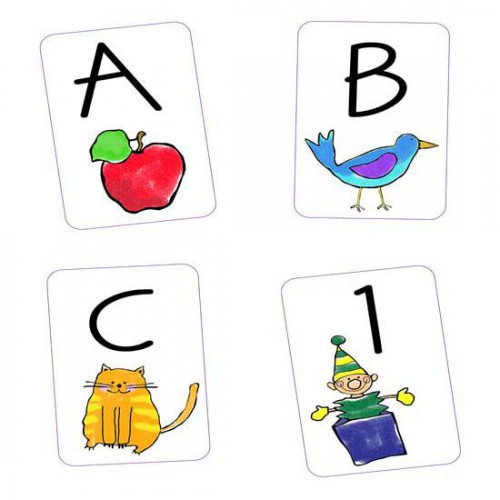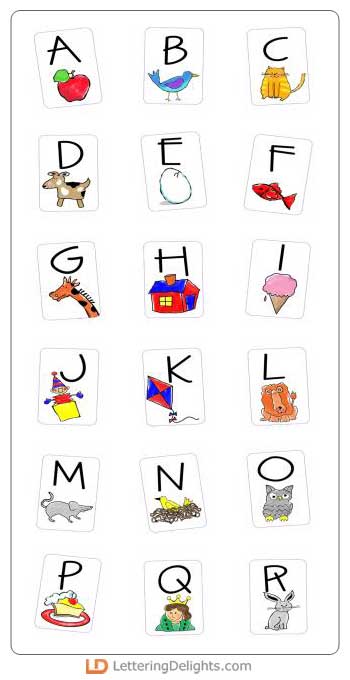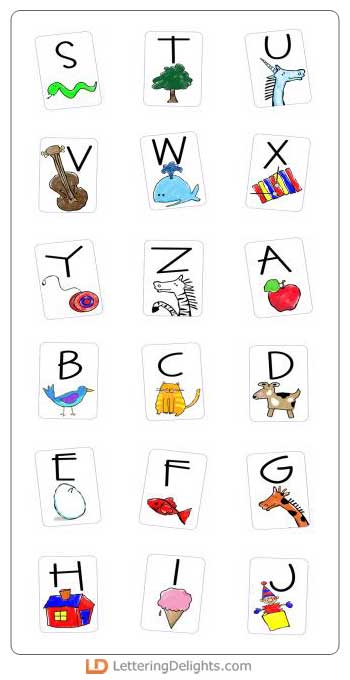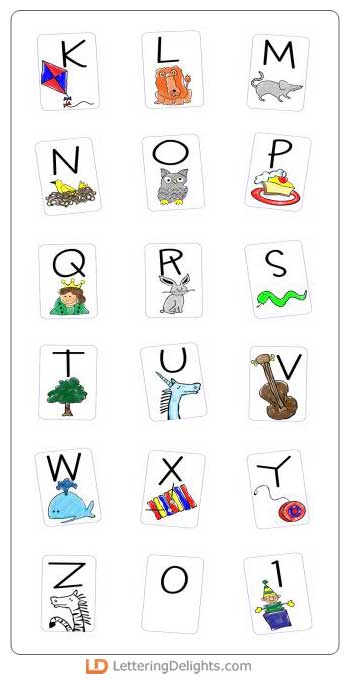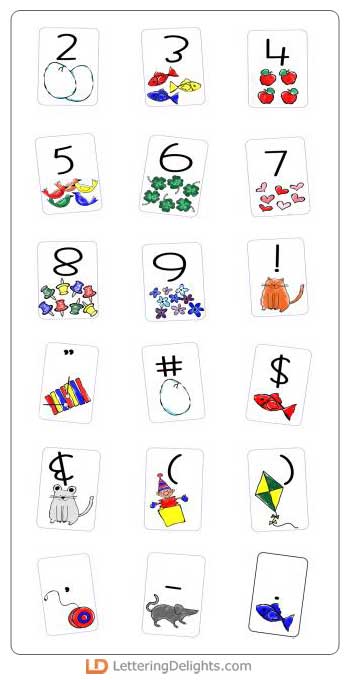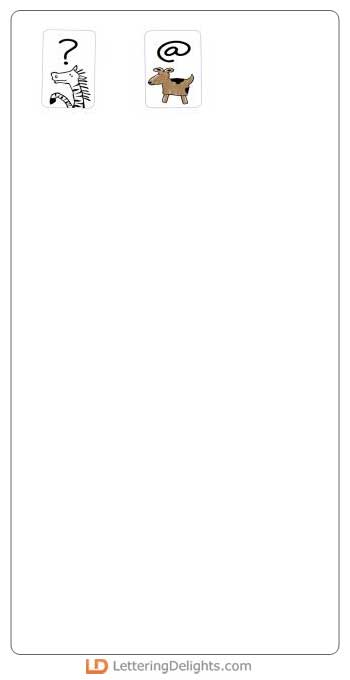
This is definitely one of the most amusing alphabets online. Add fun lettering looks to scrapbook pages for kids with the Kids Cards alphabet that mimics the look of educational flash cards. Or craft a unique greeting card for Teacher Appreciation Day.